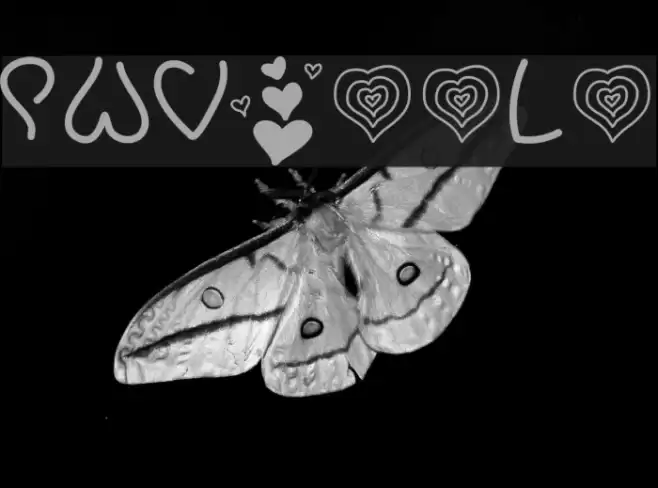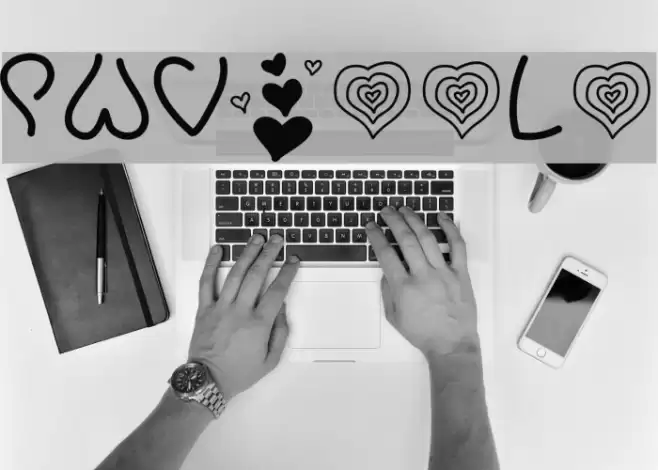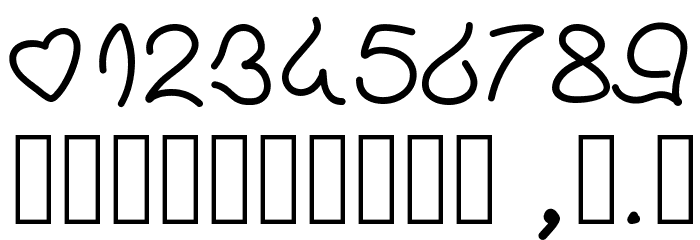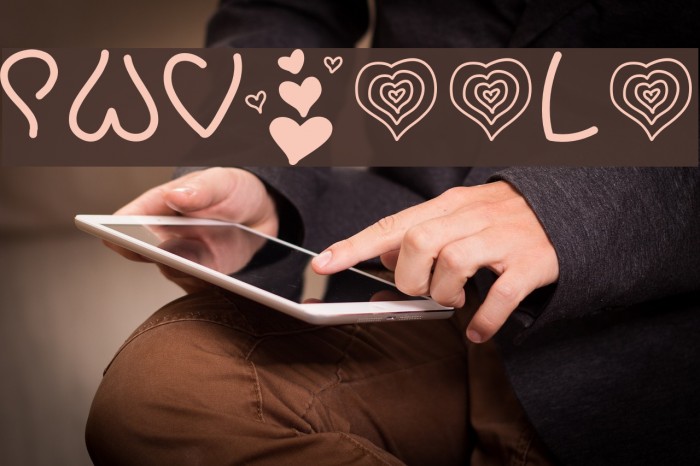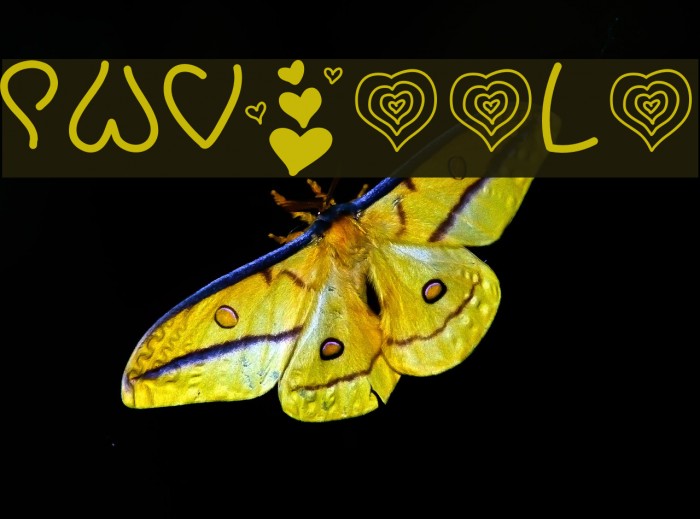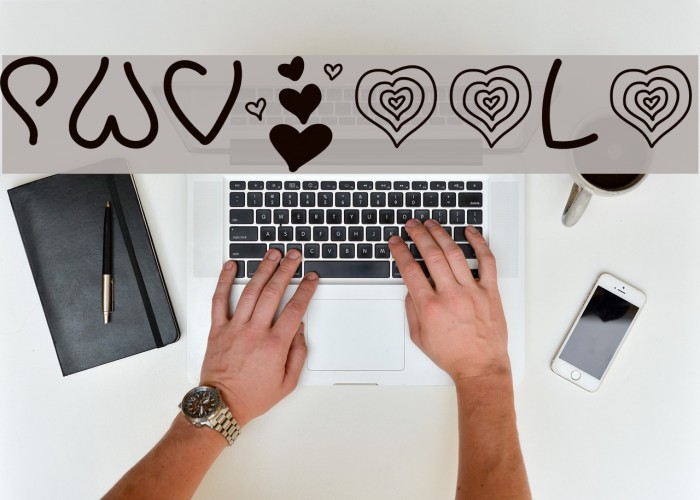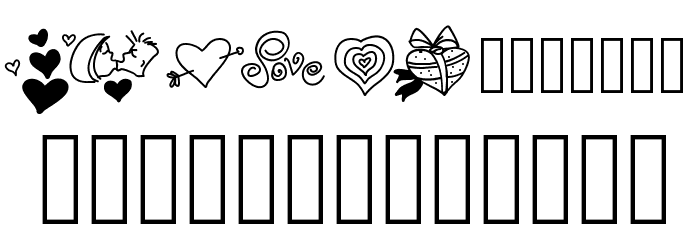
PWValentineLove Font
PWValentineLove Description
This playful and romantic font features whimsical, heart-inspired designs integrated into each character. The uppercase letters are adorned with subtle curves and heart motifs, creating a sense of charm and affection. Lowercase letters maintain a consistent style, with smooth lines and gentle curves. The numbers follow the same playful theme, making them ideal for designs that require a touch of love and warmth. Special characters include heart shapes and other love-themed icons, enhancing the font's romantic appeal. This font is perfect for Valentine's Day projects, wedding invitations, or any design that seeks to convey love and joy.
A whimsical, heart-themed font perfect for romantic designs from Uncategorized fonts.
- Proposed Projects: Ideal for Valentine's Day cards, wedding invitations, love-themed posters, and playful branding.
- Overall Style: Playful, Romantic
- Use Case: Headlines, Logos, Invitations